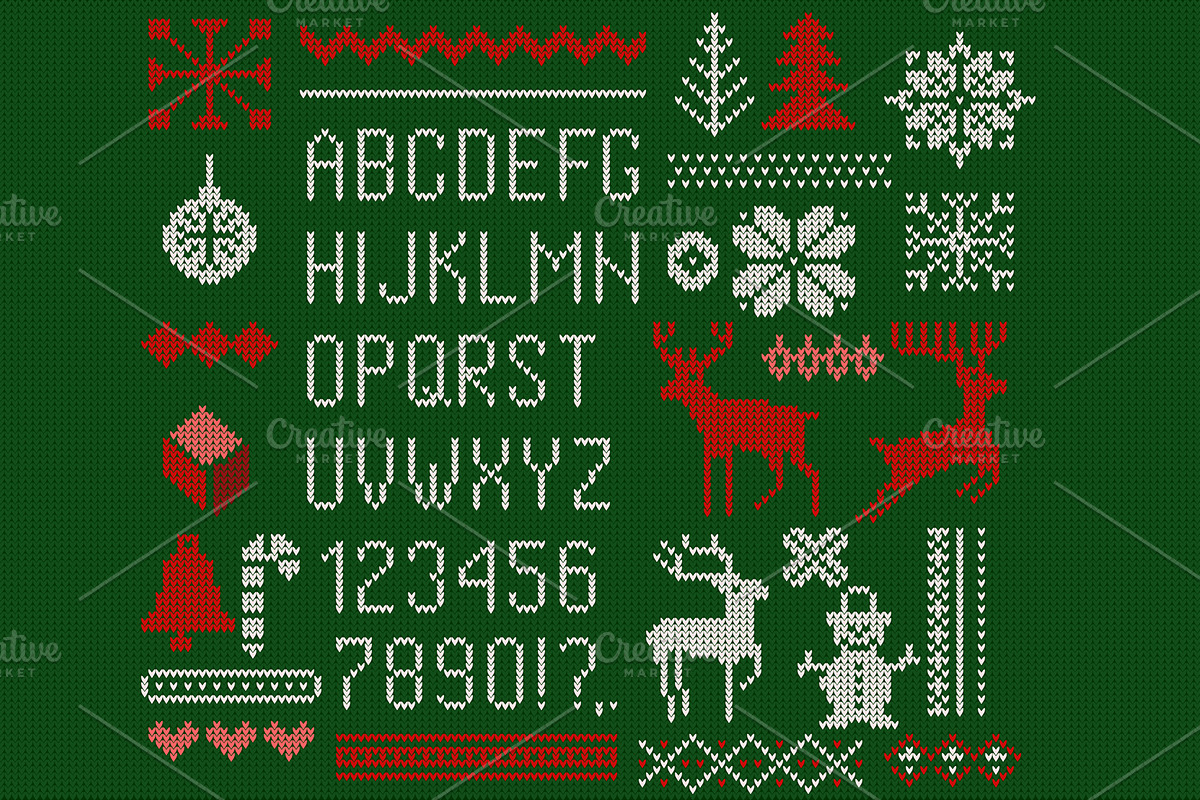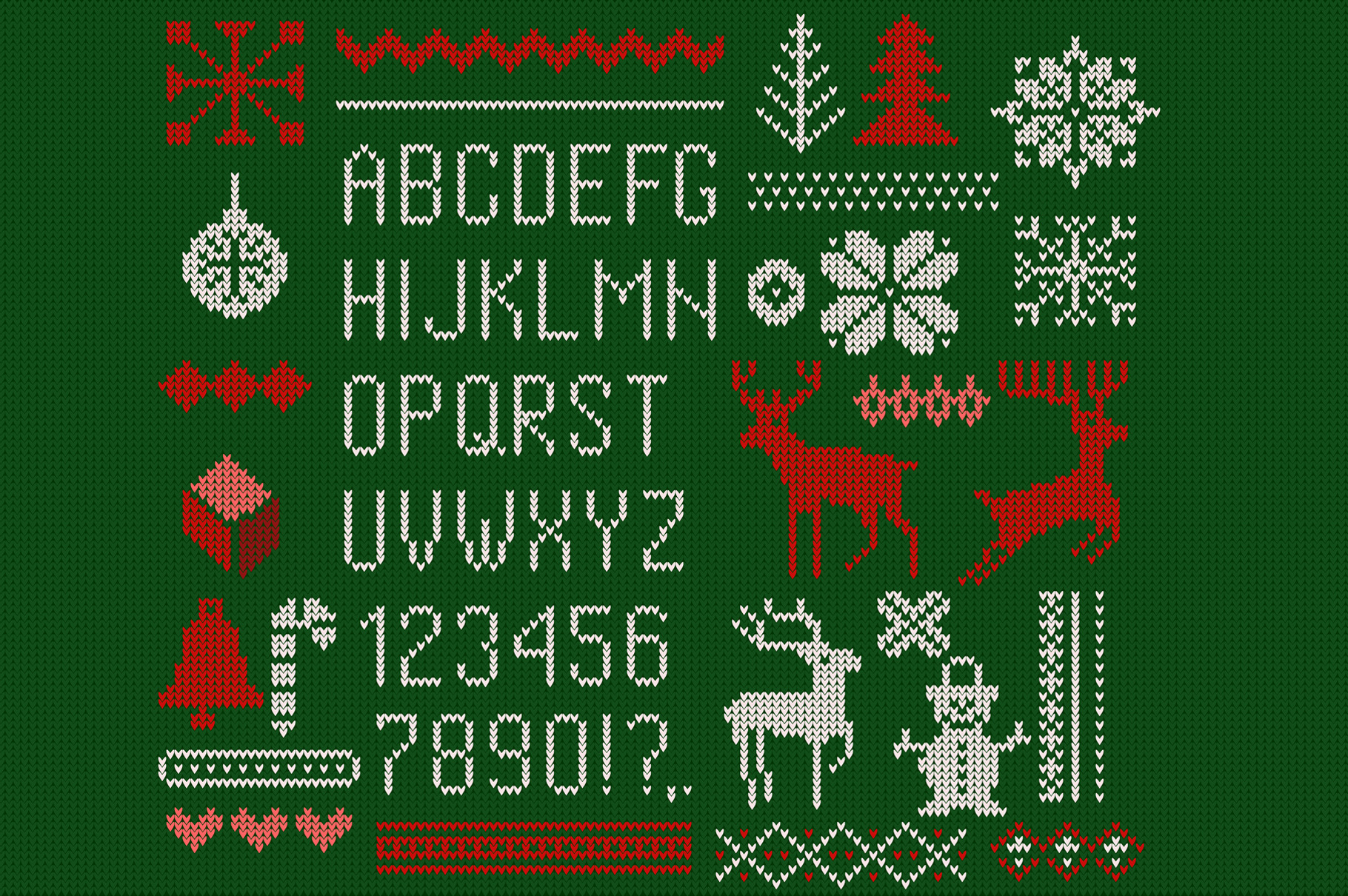
Knitted font, elements and borders.
Set of knitted font, elements and borders for Christmas, New Year or winter design. Ugly sweater style. Sweater ornaments for scandinavian pattern. Vector illustration. Isolated on green background.